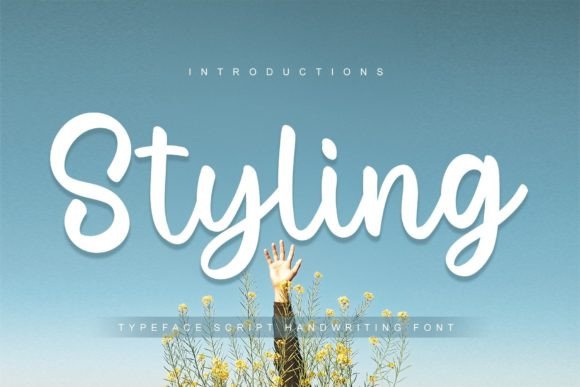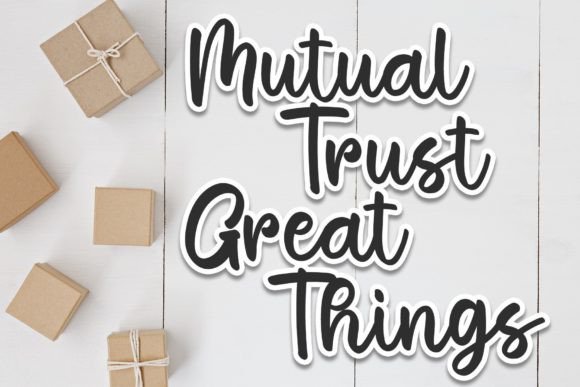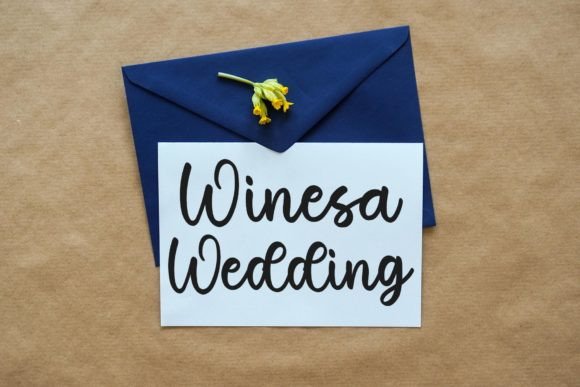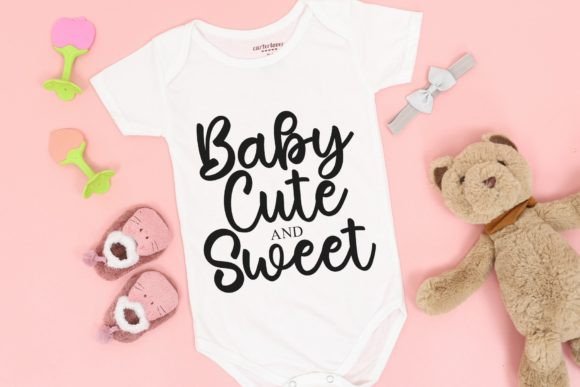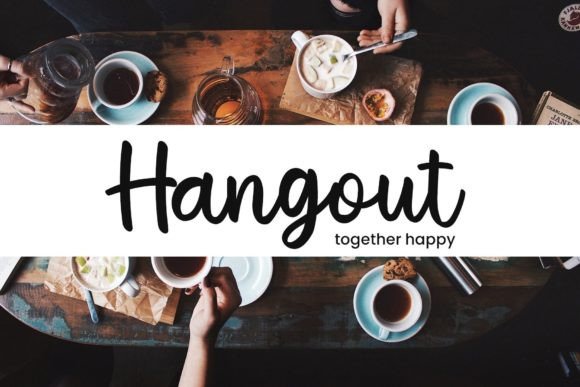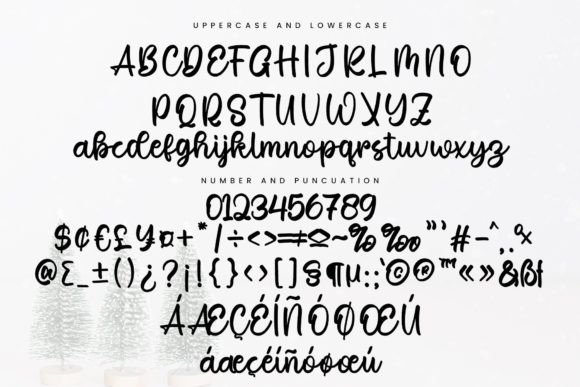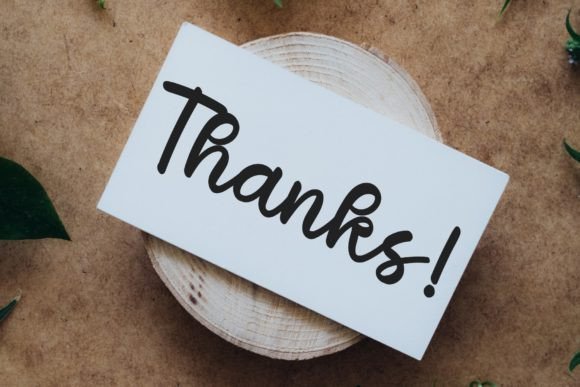
Styling Font
About Styling Font
“Styling” is presented as an elegant and dainty handwritten font that includes sweet and delicate swashes. The font is described as having an original look, and its appeal is suggested for a variety of crafty ideas, including applications like letterheads, titles, and stationery.
The term “elegant and dainty” indicates a refined and delicate aesthetic. Fonts with these qualities are often chosen for projects where a touch of sophistication and grace is desired, aligning well with letterheads, titles, and stationery where a polished appearance is often preferred.
The mention of “sweet and delicate swashes” suggests that “Styling” comes with additional decorative elements, allowing for customization and enhancing the visual appeal of the font. Swashes can add a whimsical and ornamental touch to the characters, making them suitable for creative and crafty designs.
Describing the font’s look as “original” implies a unique and distinctive design, which can be valuable for making a creative statement and standing out in various applications.
The suggestion that “Styling” will appeal to a wide range of crafty ideas indicates its versatility, making it suitable for a diverse set of design projects.
In conclusion, “Styling” is introduced as an elegant and dainty handwritten font with sweet and delicate swashes. Its original look and versatility make it potentially well-suited for a variety of crafty and creative design ideas, from letterheads to stationery.